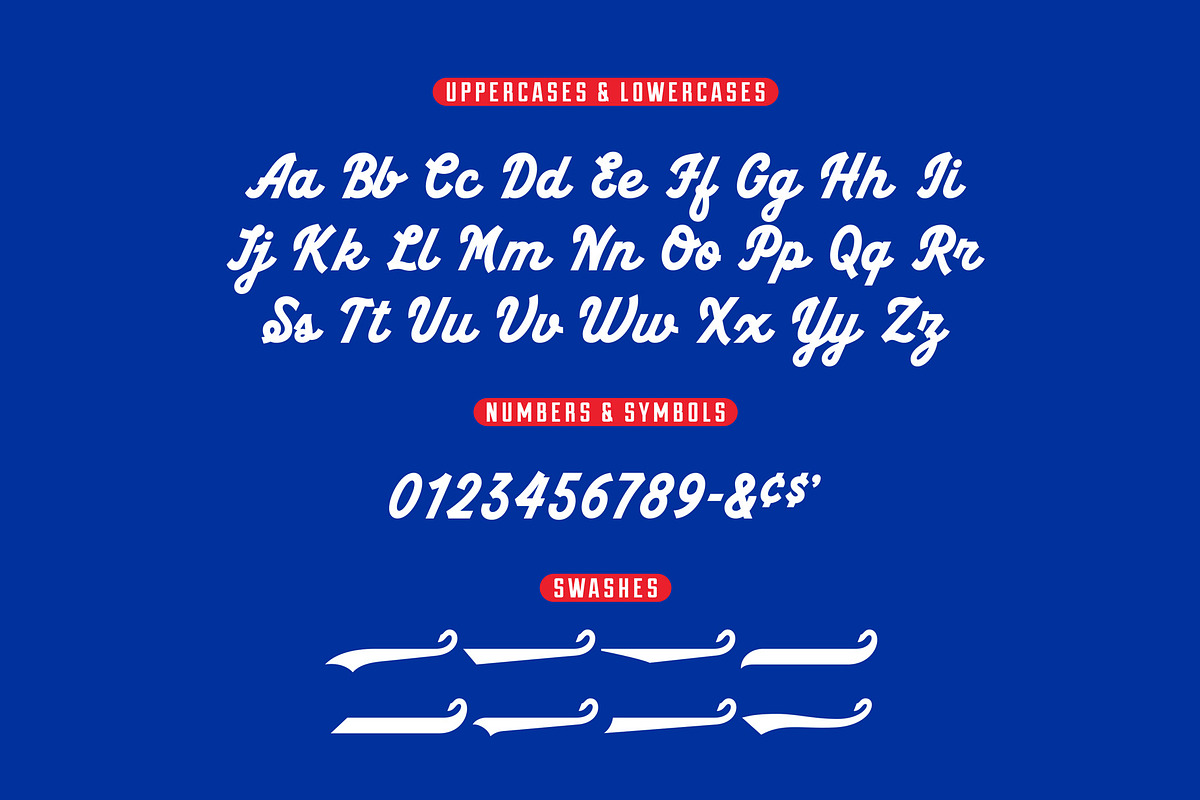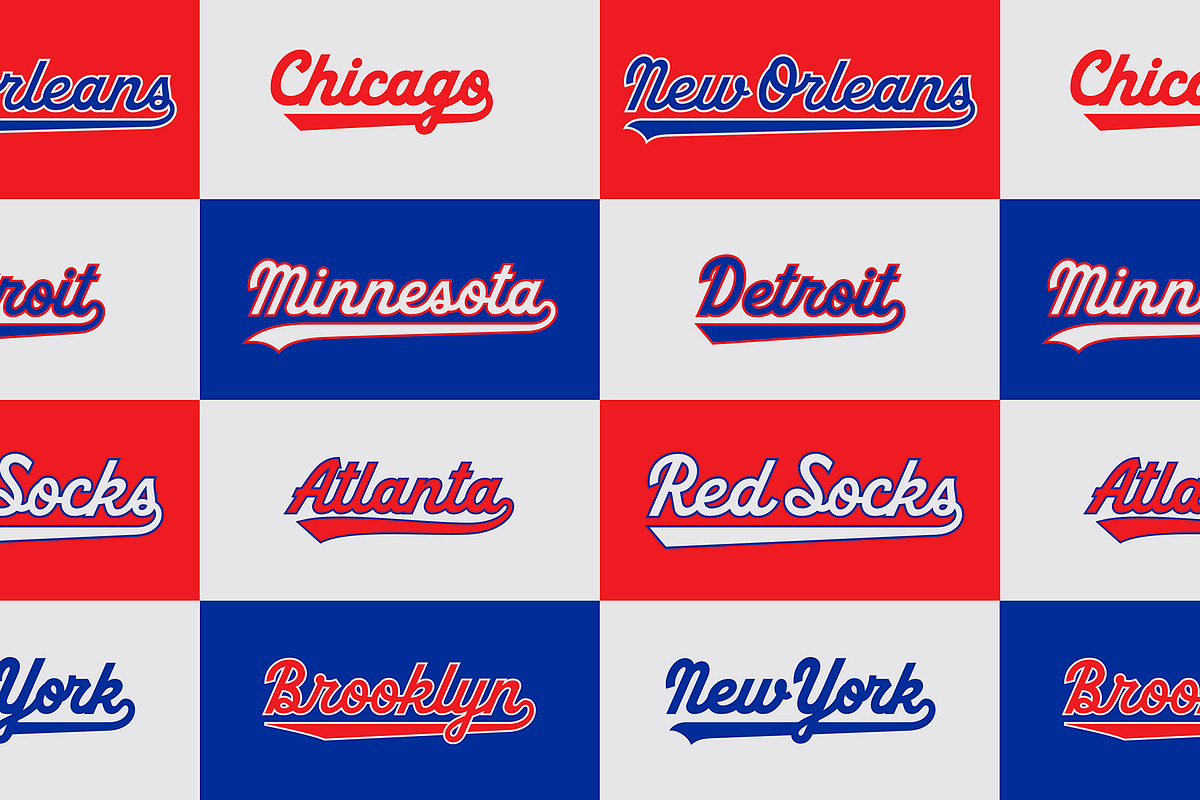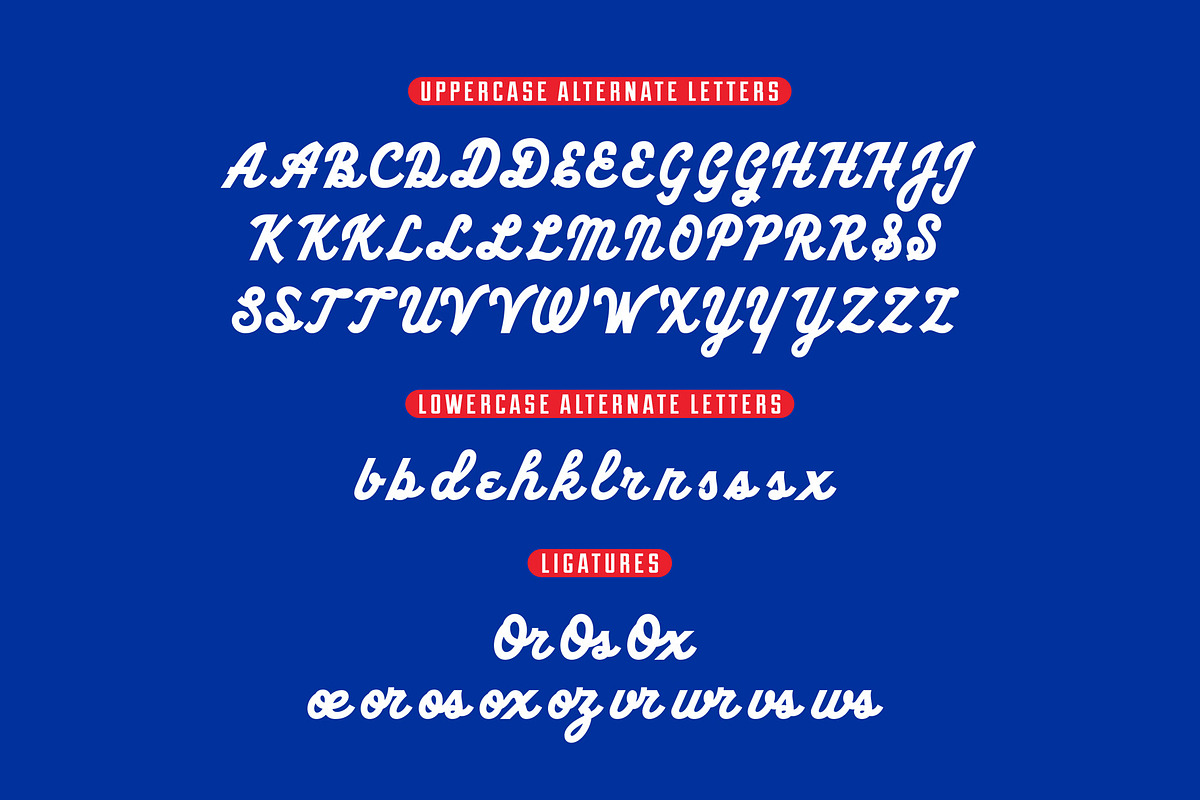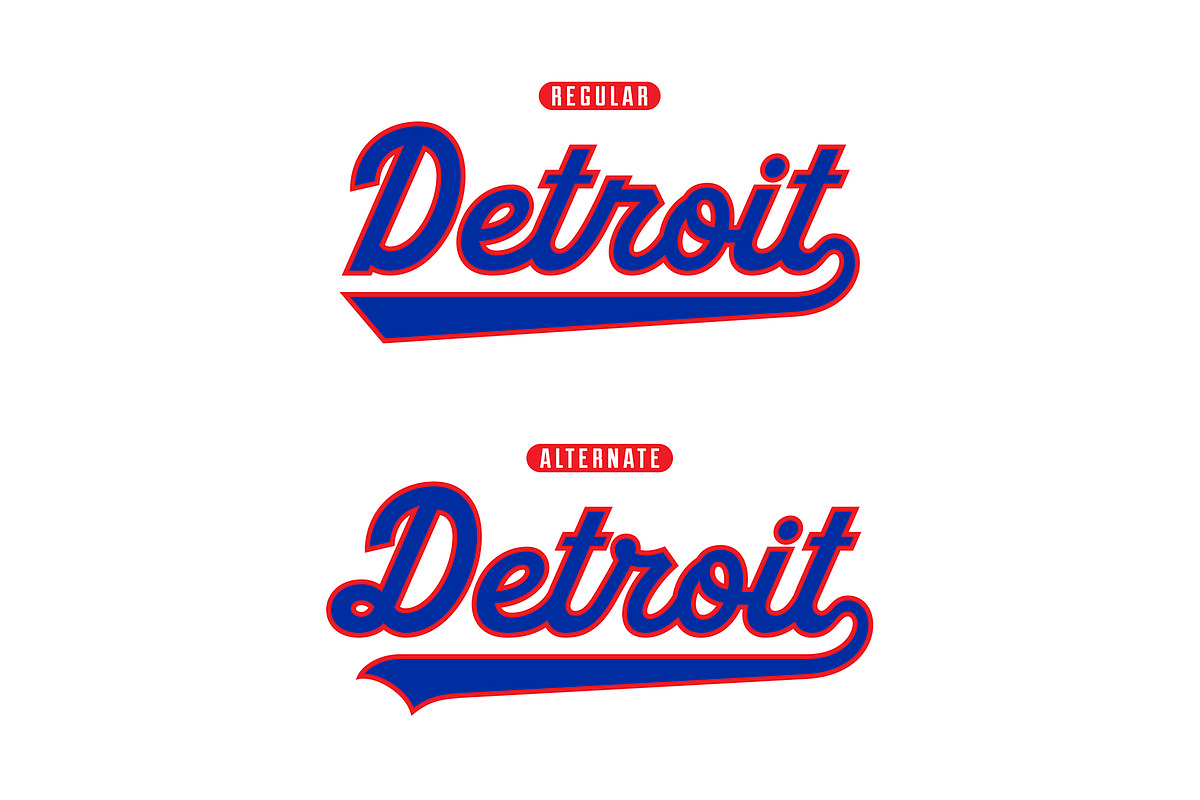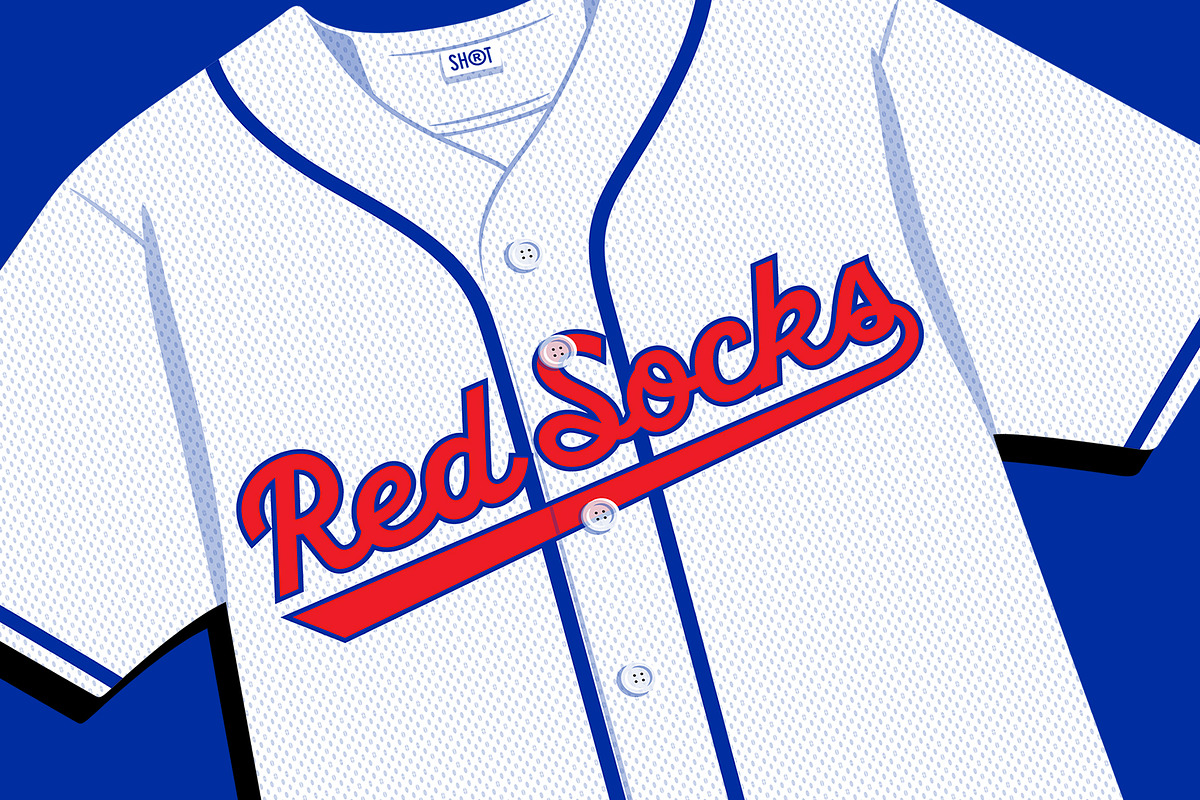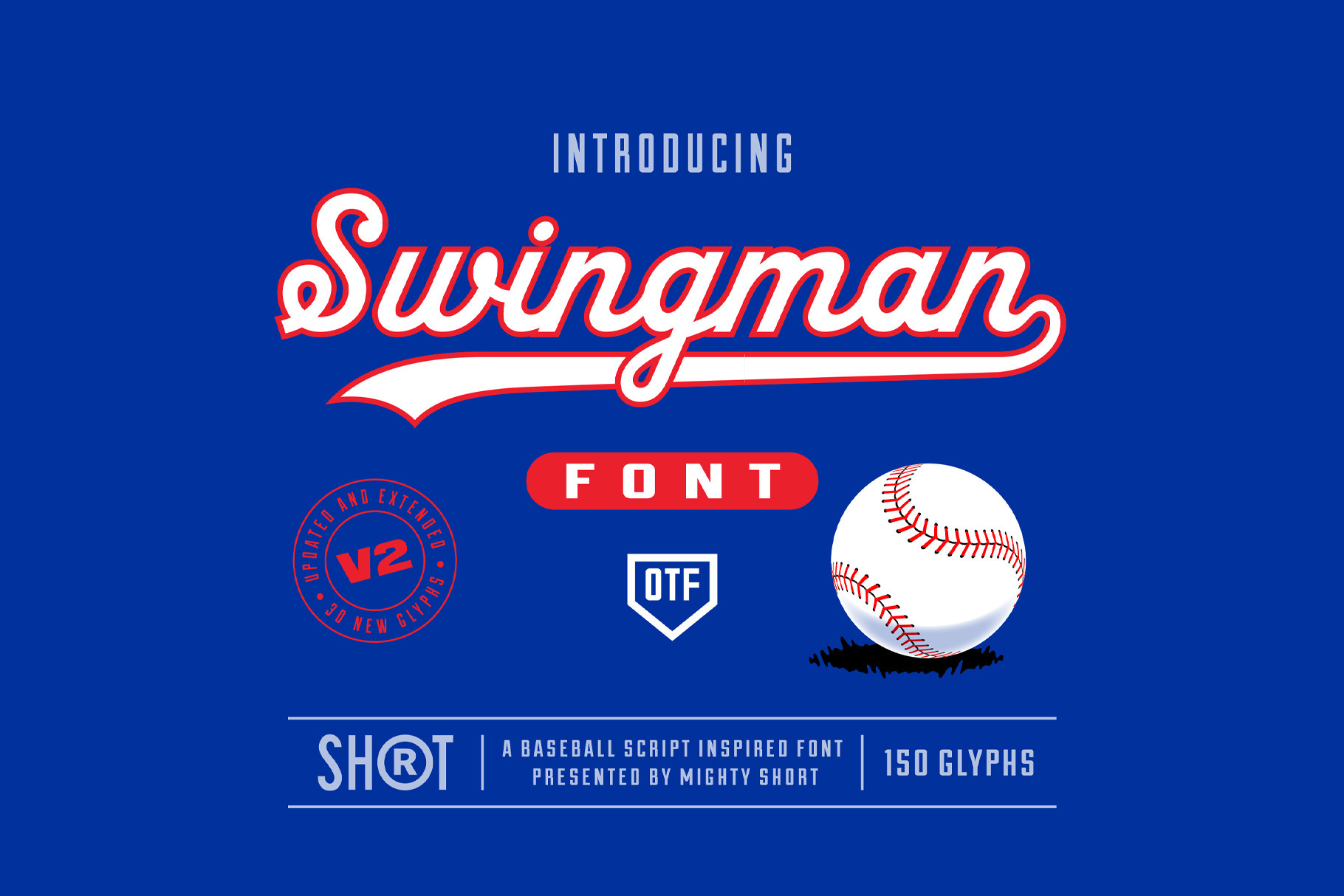
Swingman V2 Baseball Font
My New Font "Swingman V2" is now available! This vintage script inspired font comes with 150 glyphs (30 New Ones in this version) from uppercase, lowercase, numbers, punctuation, ligatures and a lot of alternate characters. Definitely a good catch!
I wish I had read the reviews before purchase. The samples look so good, but I can't get to swashes to work correctly and there are even some issues with the letters not looking smooth on some edges. Very expensive font, especially for one that doesn't work well.
The font looks great, but the swash short cuts barely work, the swashes only connect to the letter T. Any time you use the swashes they are spaced away from the letter and are detached. I messaged the creator for a workaround but he has yet to respond. I wouldn't waste the money on this font.
Hit a home run every time I use this in social graphics for my softball club. Straight off the bench this typeface will hit dingers for you. Awesome ligatures and the swashes turn it all the way up to 11.